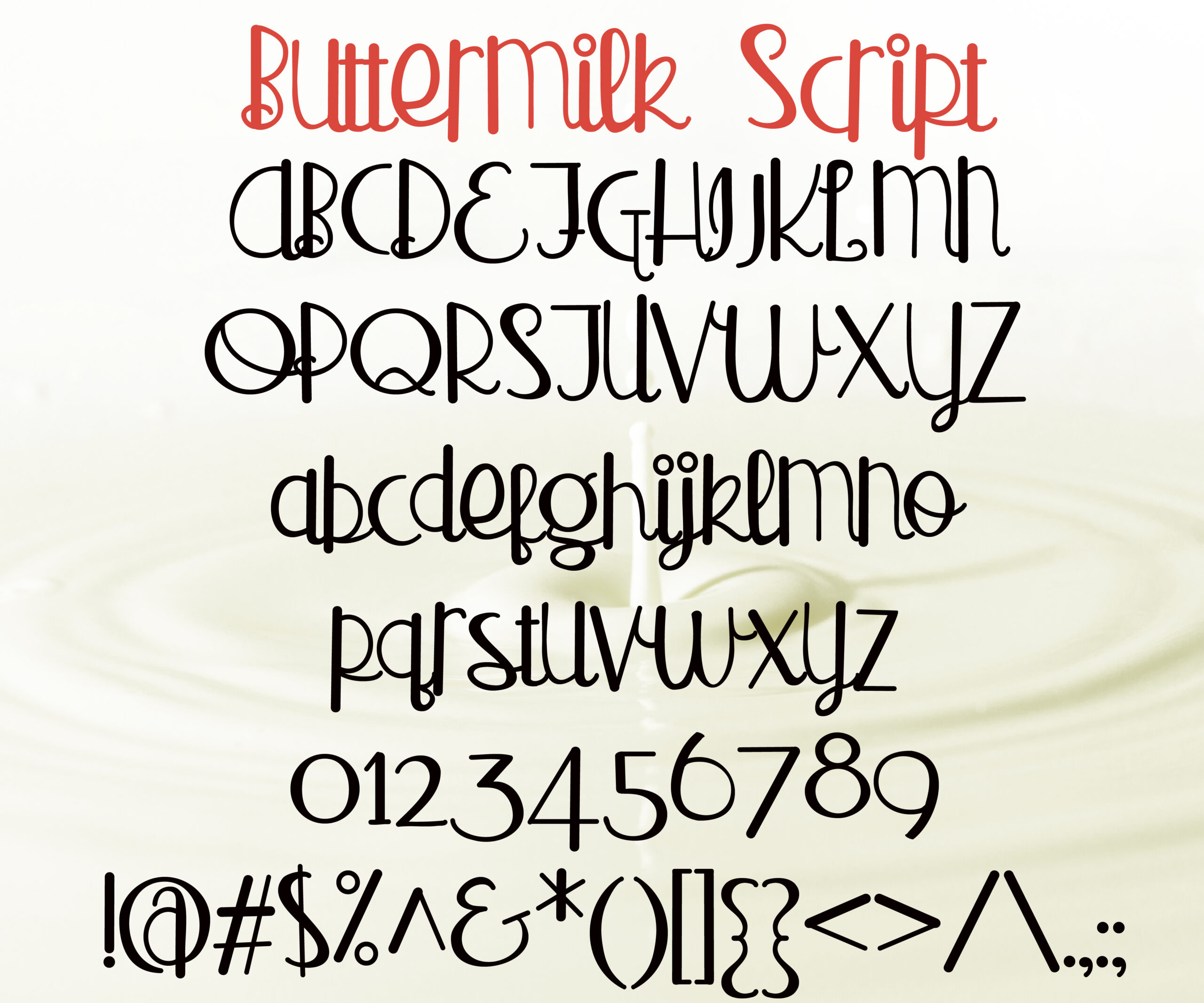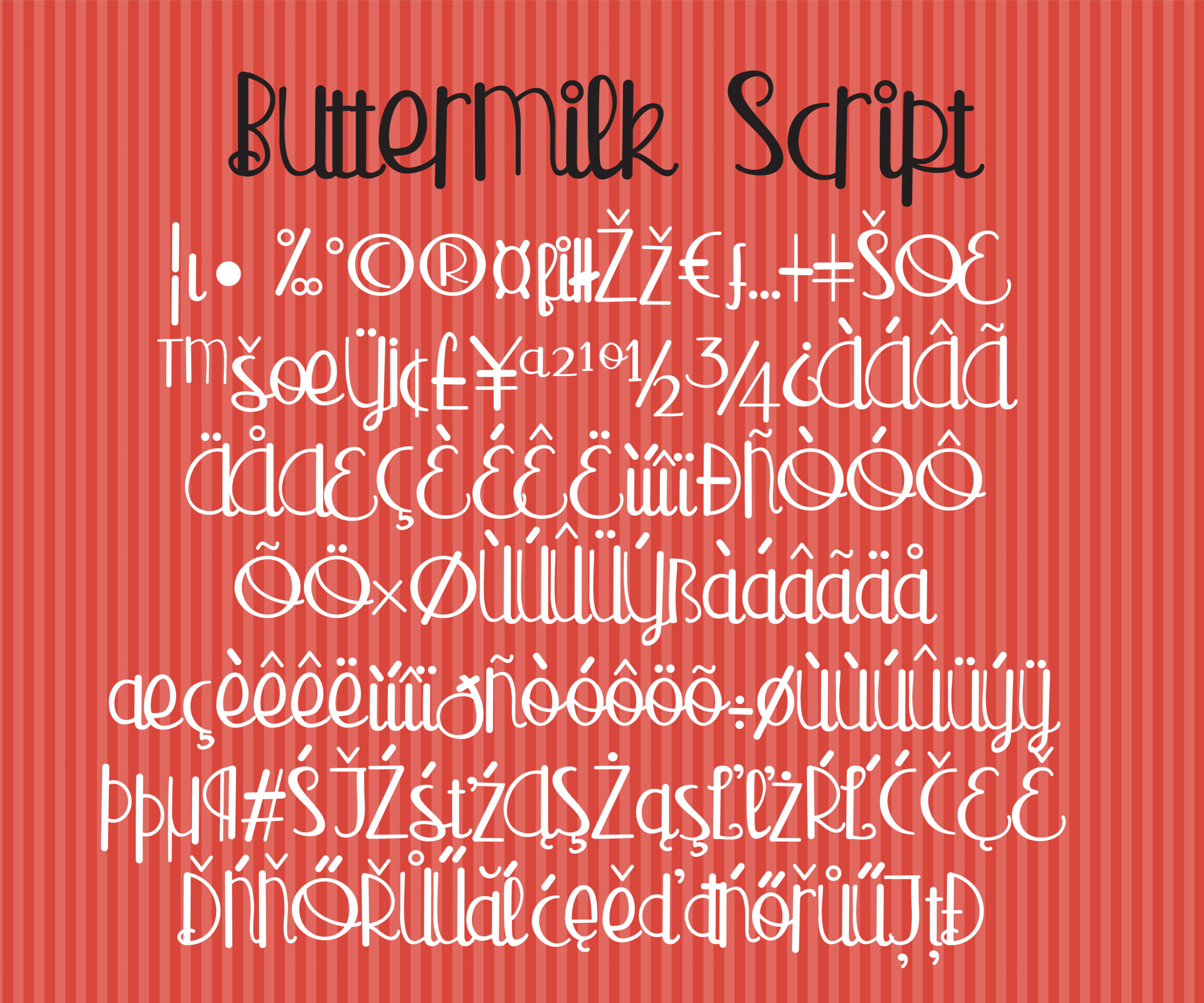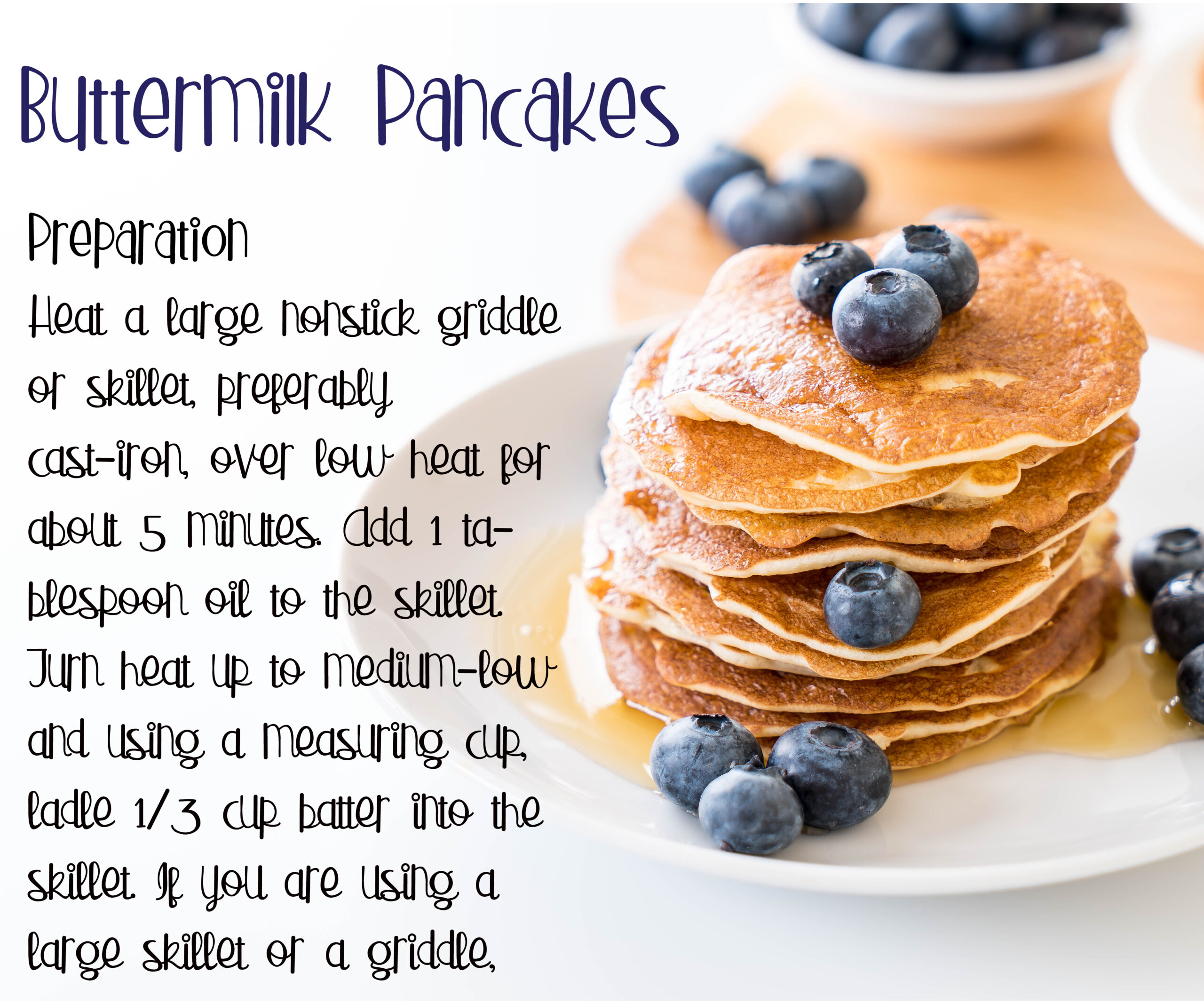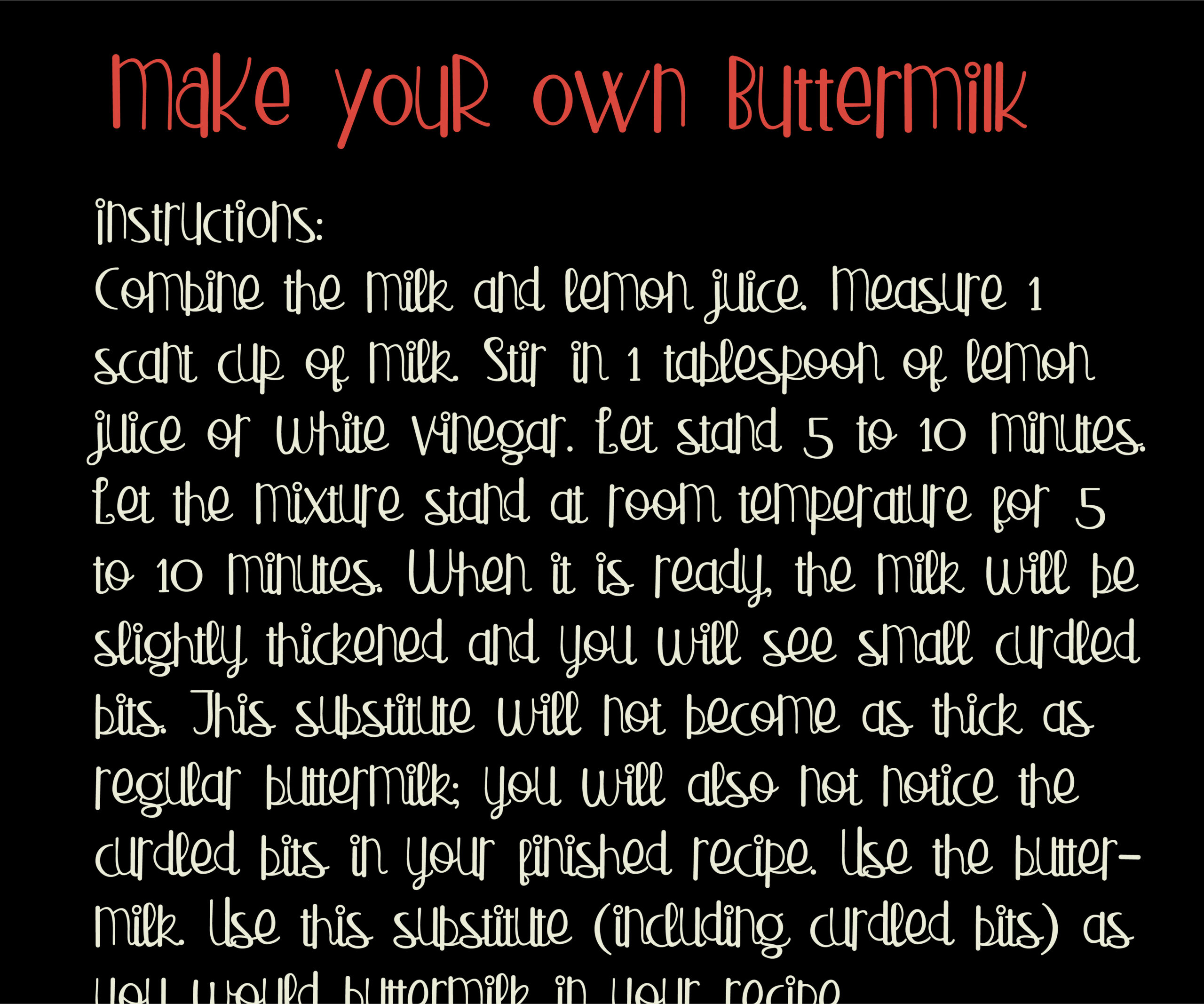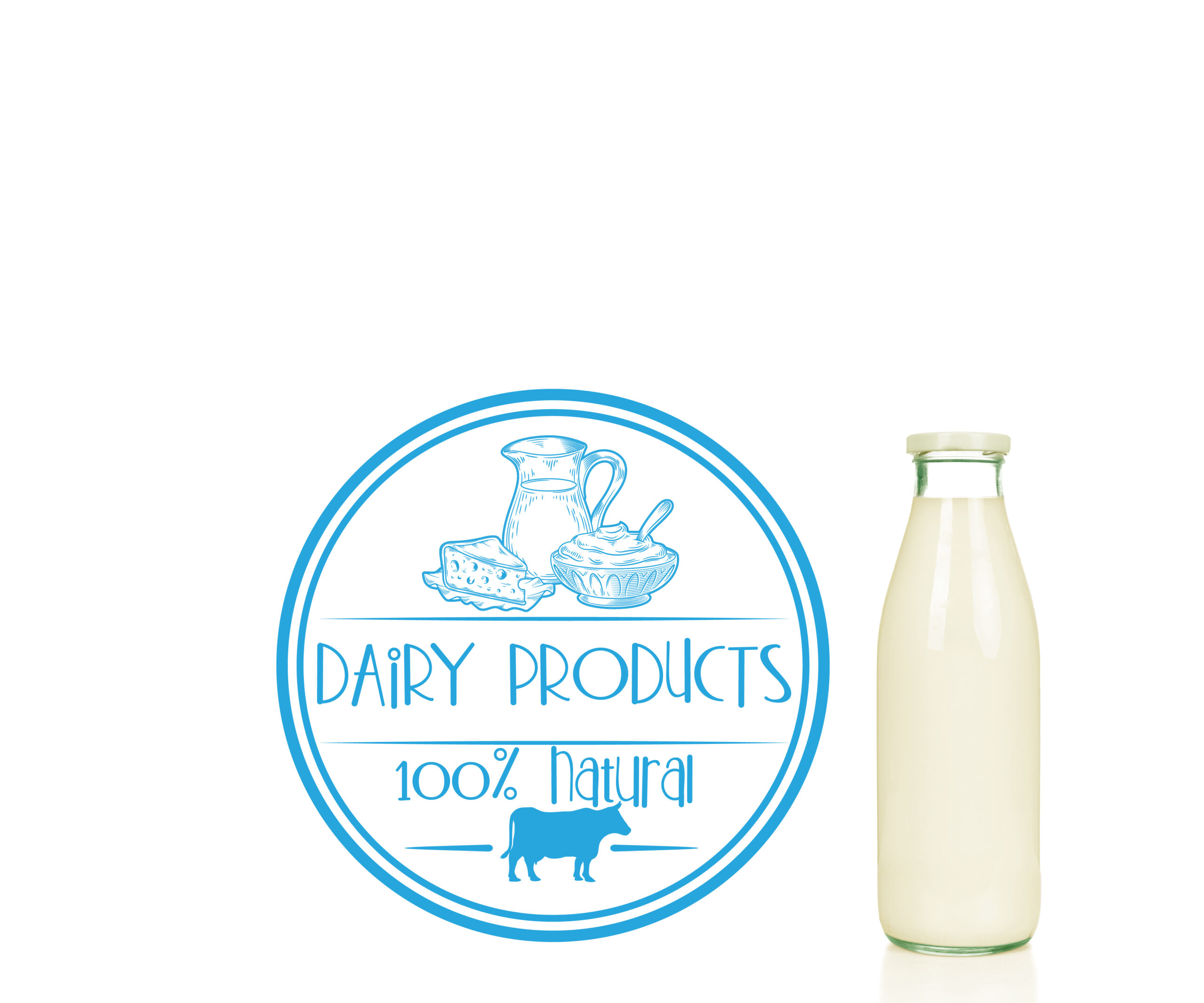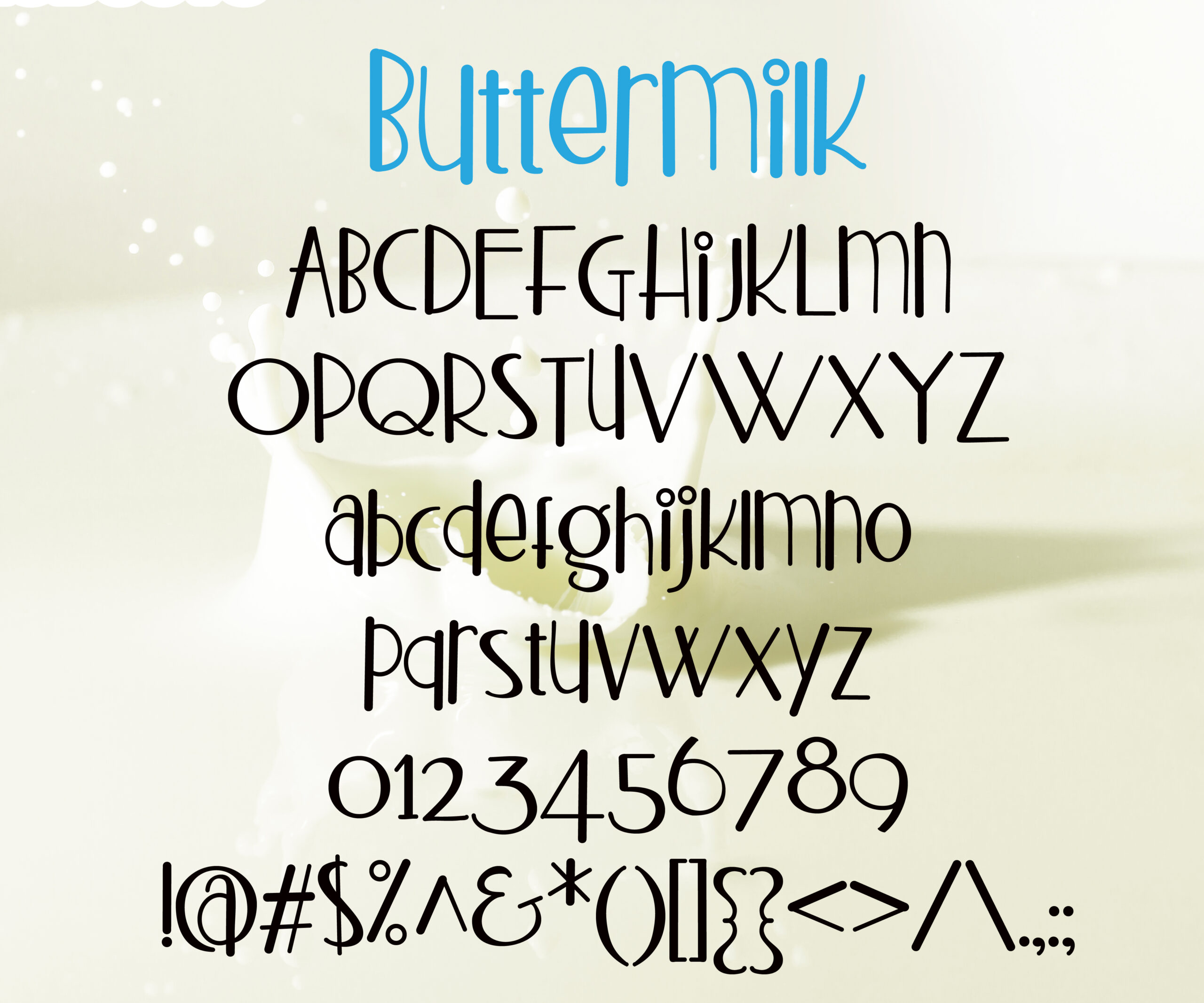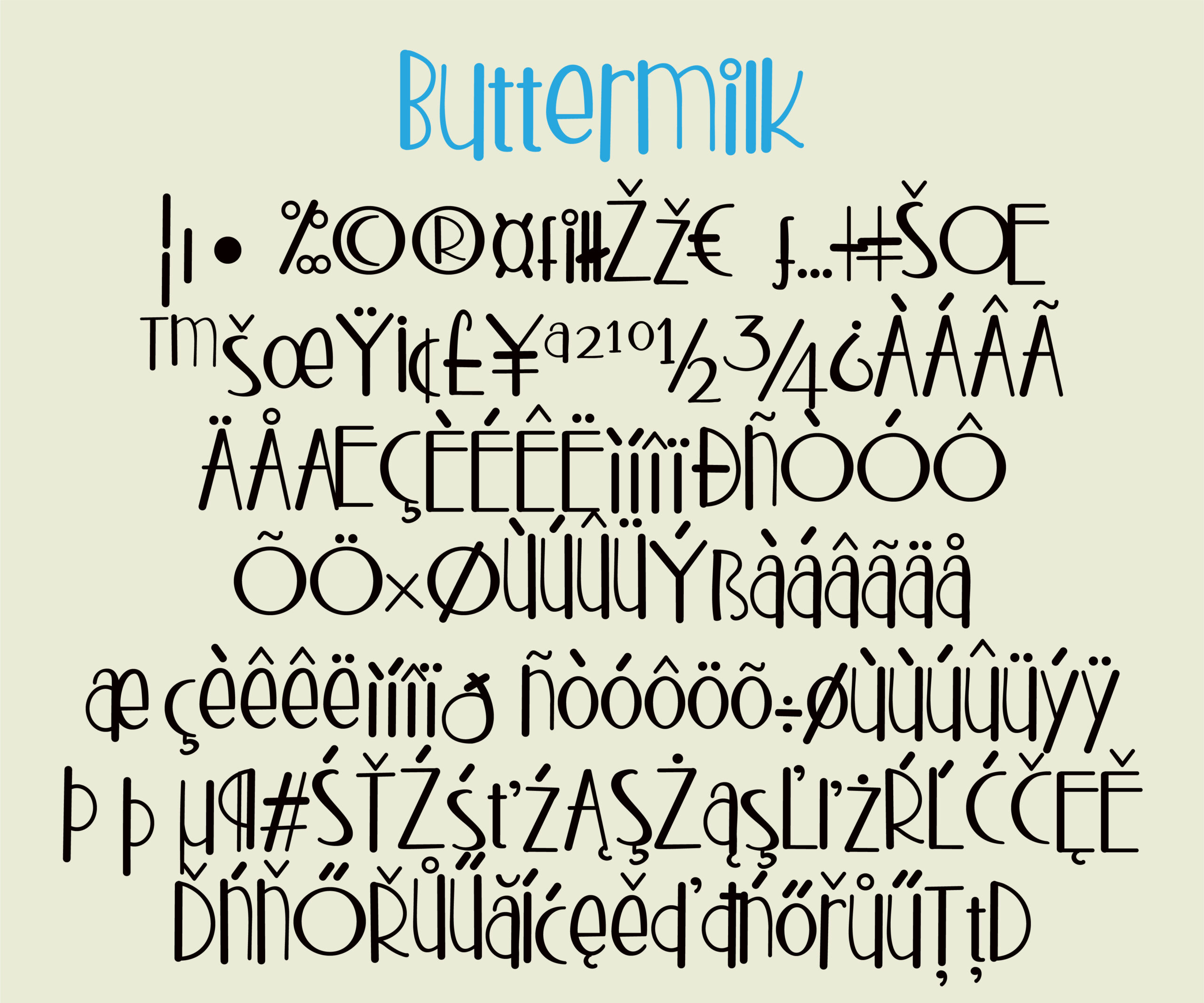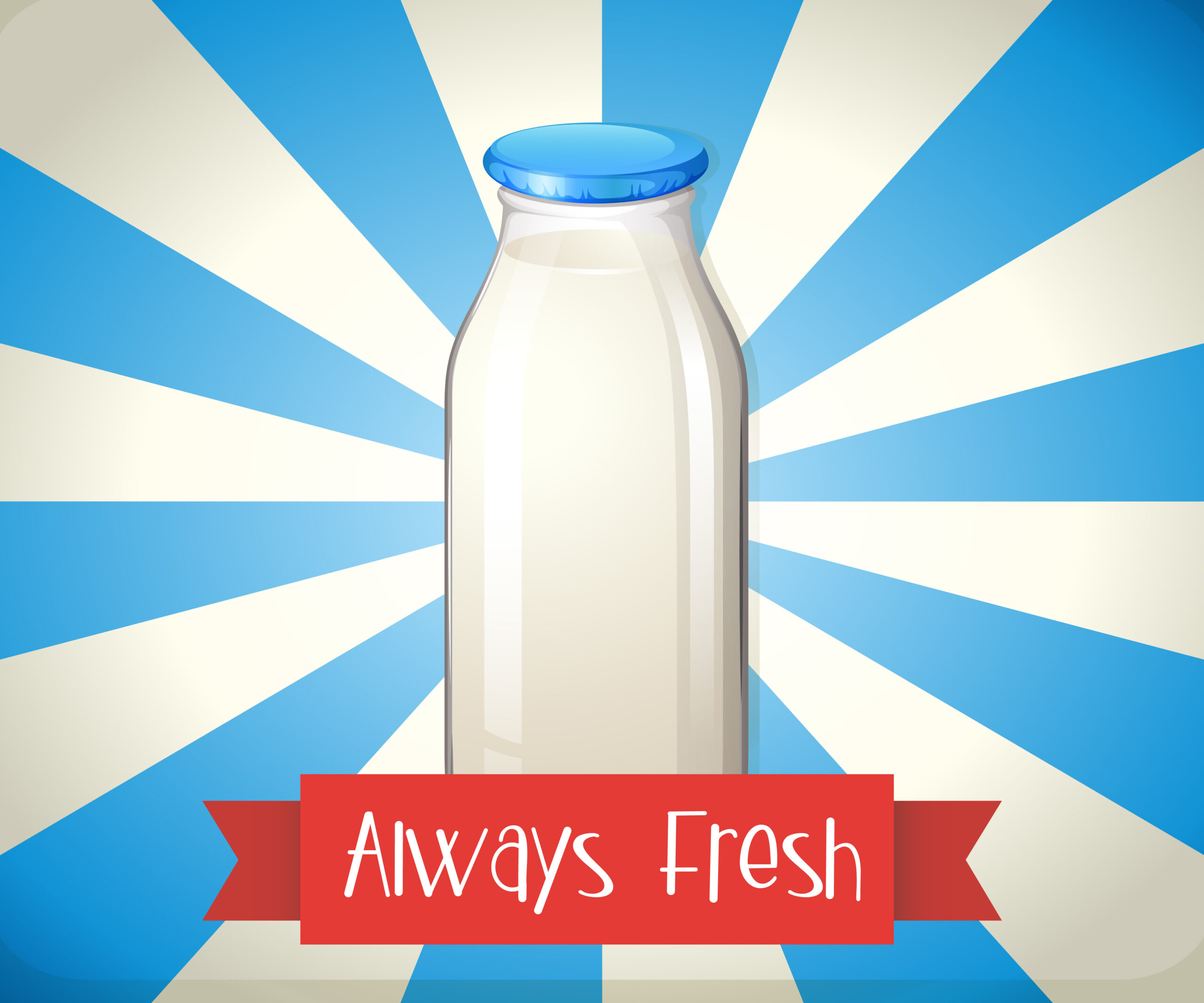
Buttermilk Font
About Buttermilk Font
Buttermilk Script is a cute quasi-script (part script, part print) that adds a touch of whimsy to any product and works hand in hand with it’s sister font, Buttermilk.